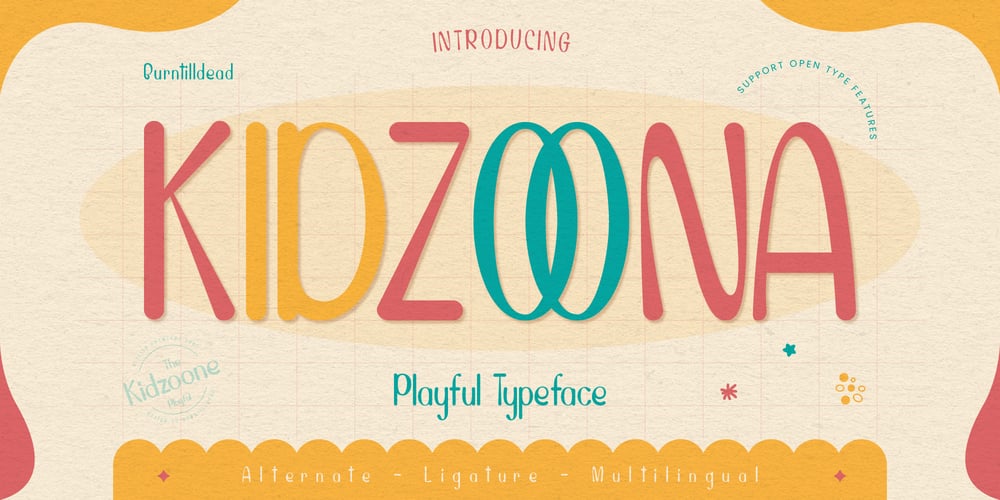
Kidzoona Playful typeface
Kidzoona Playful typeface font
Kidzoona Playful typeface Font Family was designed by Eric Kurniawan and published by Burntilldead. Kidzoona Playful typeface contains 1 styles and family package options. Let’s have fun with Kidzoona, a handwriting with cheerful vibes. Really playful typeface for any sweet or cute theme concept, illustration posters, stickers, fun graphics and more. Make your design happy vibes ;DThis font have many ligature & opentype feature. This font is good choice for your playful design project.